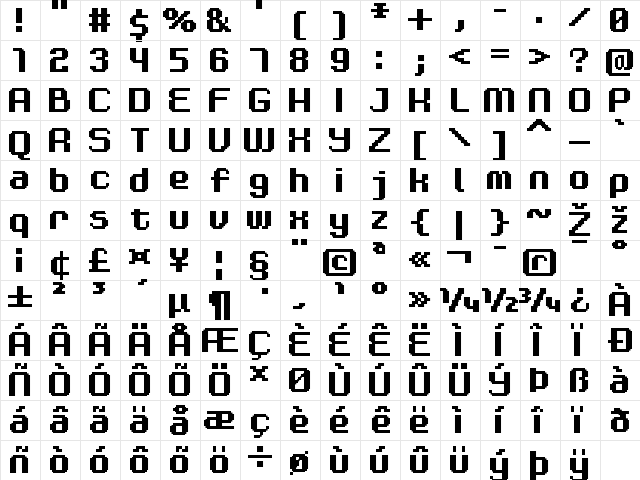
FFF Modulas Bold Extended Regular
| Foundry | Fonts For Flash |
| Designer | Fonts For Flash |
Design Context for FFF Modulas Bold Extended Typeface
FFF Modulas Bold Extended is a composed and adaptable typeface that performs quietly and consistently across a wide range of design contexts. The heavy weight commands attention and anchors typographic hierarchies.